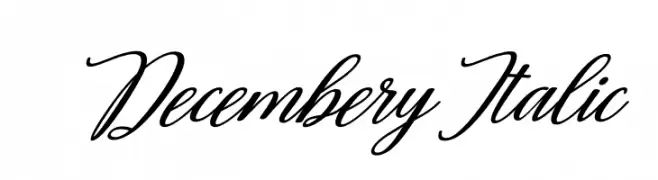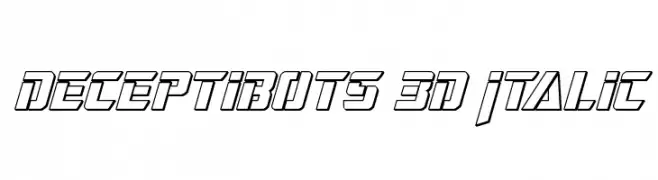
A bold, italicized handwritten font with a dynamic and casual style.
A bold, italic font with high contrast and tight spacing, perfect for impactful designs.
A bold, italicized font with a modern and dynamic style.
A bold, italic font with a dynamic and impactful style.
A sleek, modern italic font with clean lines and smooth curves.
A sleek, modern, light italic font with smooth strokes and low contrast.
A modern, italic sans-serif font with medium weight and normal spacing.
A modern, semi-bold italic sans-serif font with a sleek, condensed style.
A graceful, italic script font with high contrast and flowing connections.